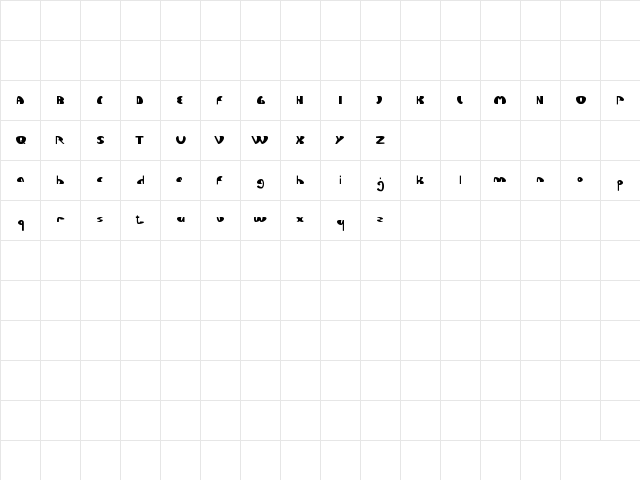
Lets Do It Again Regular
Design Context for Lets Do It Again
Lets Do It Again is a composed and adaptable typeface that performs quietly and consistently across a wide range of design contexts.
Pro Tip: Use Lets Do It Again in both headline and body roles to test its range before committing to a single application.